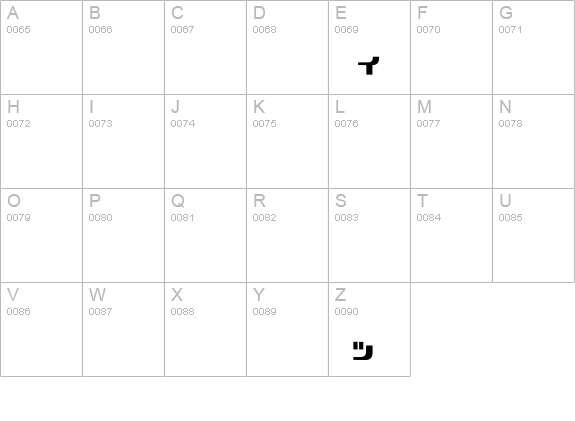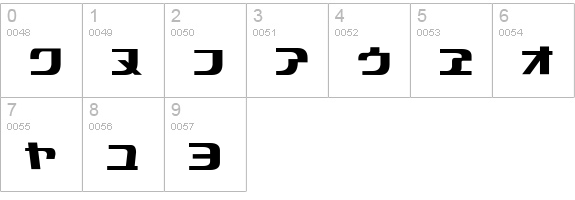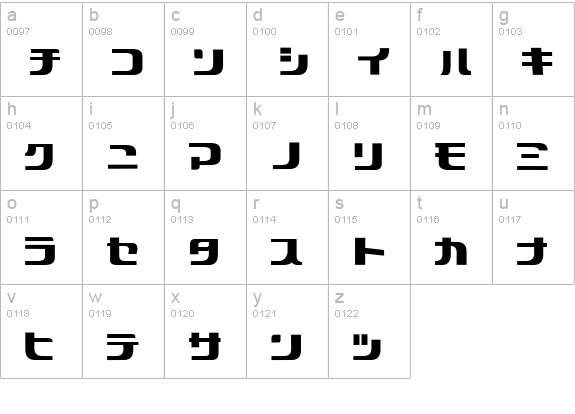
Orthodox Font Details
Orthodox font is a timeless and classic typeface that exudes elegance and sophistication. Its clean lines and traditional yet modern design make it perfect for various design projects, from branding to editorial. The Orthodox font is versatile and can be used for both headings and body text, adding a touch of refinement to any layout. Best of all, this exquisite font is available for free download at FontsMarket.com, making it easily accessible for designers and creatives looking to elevate their work with a touch of timeless beauty. Don't miss out on the opportunity to enhance your designs with the Orthodox font today!